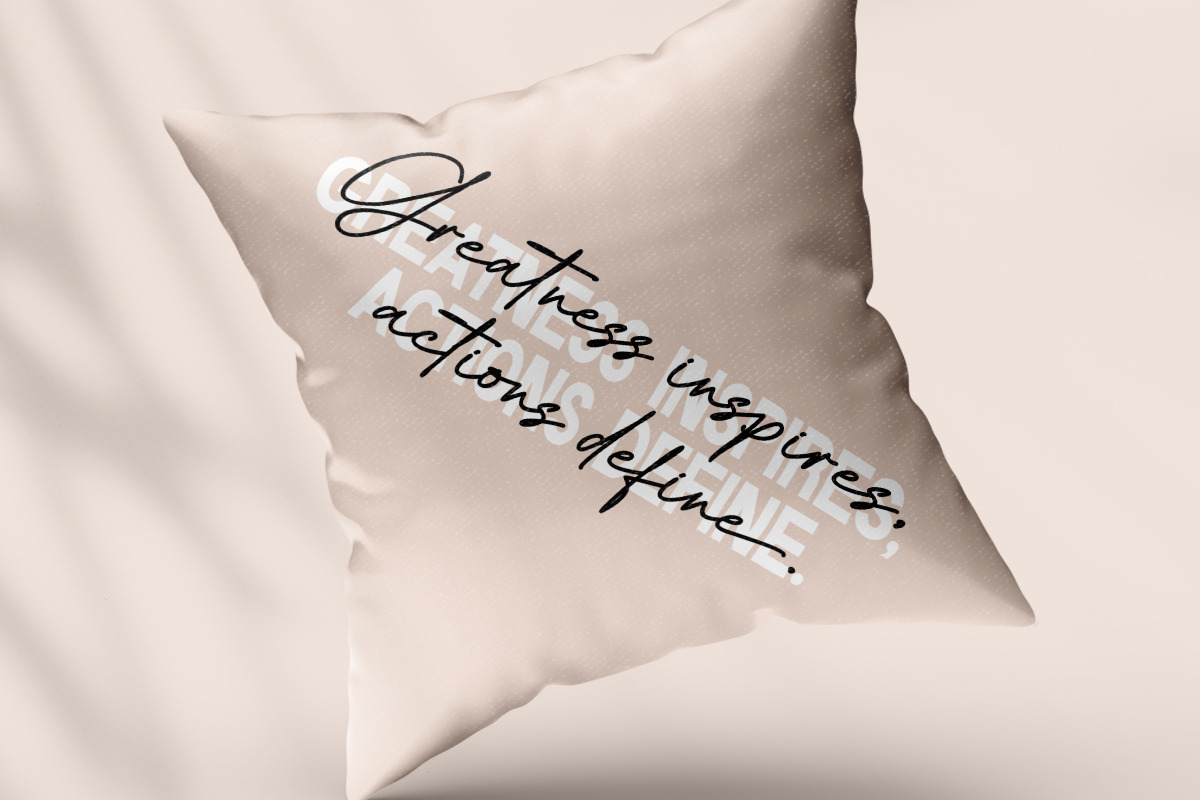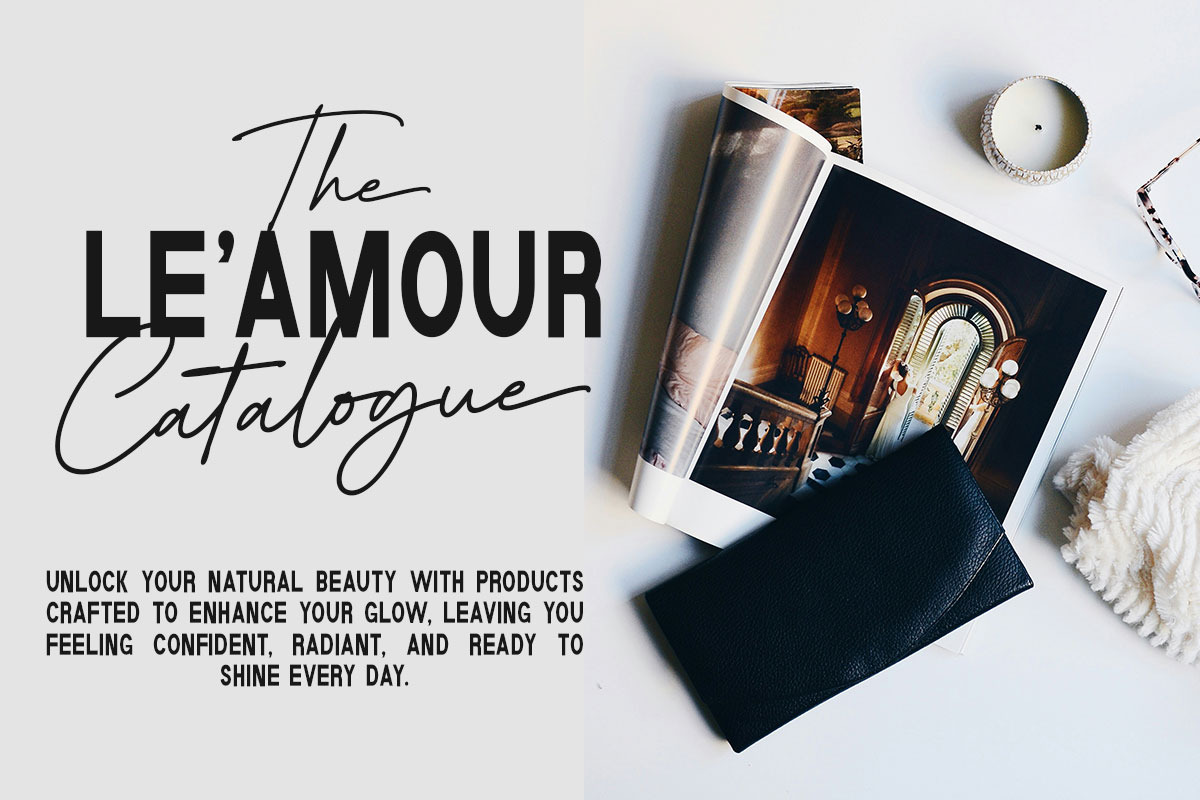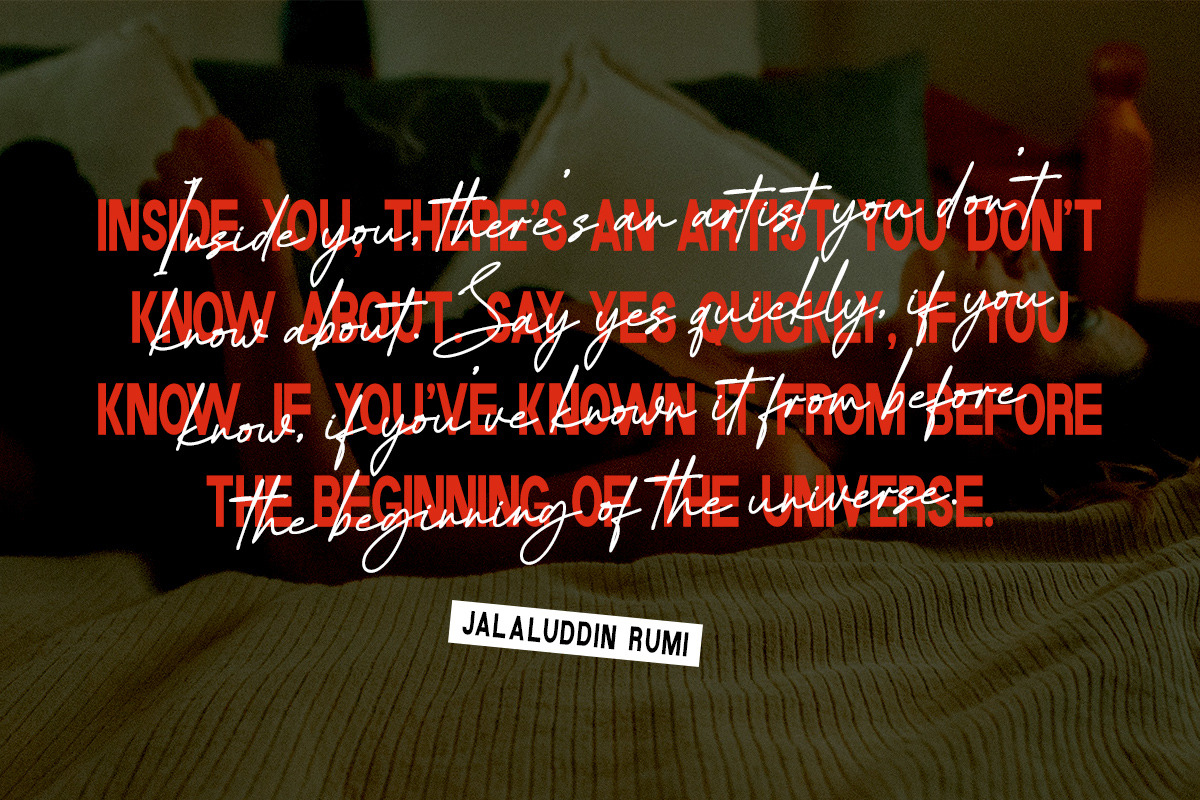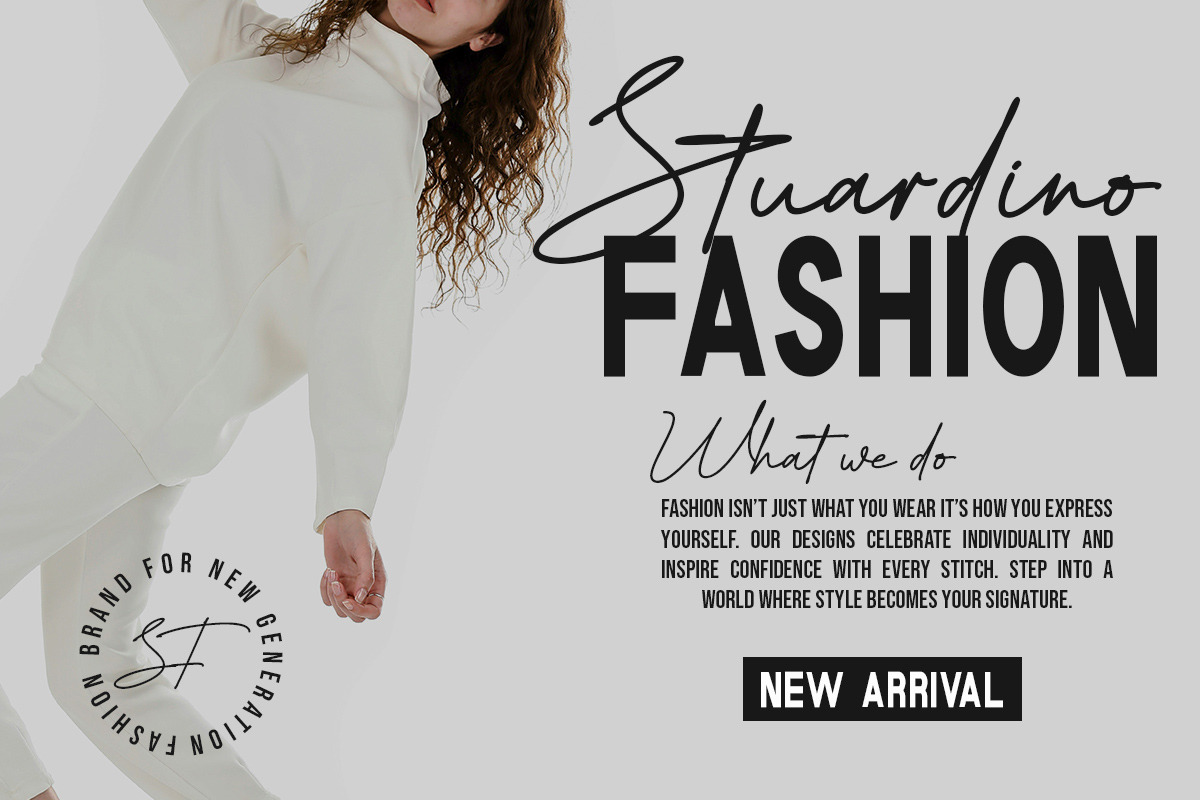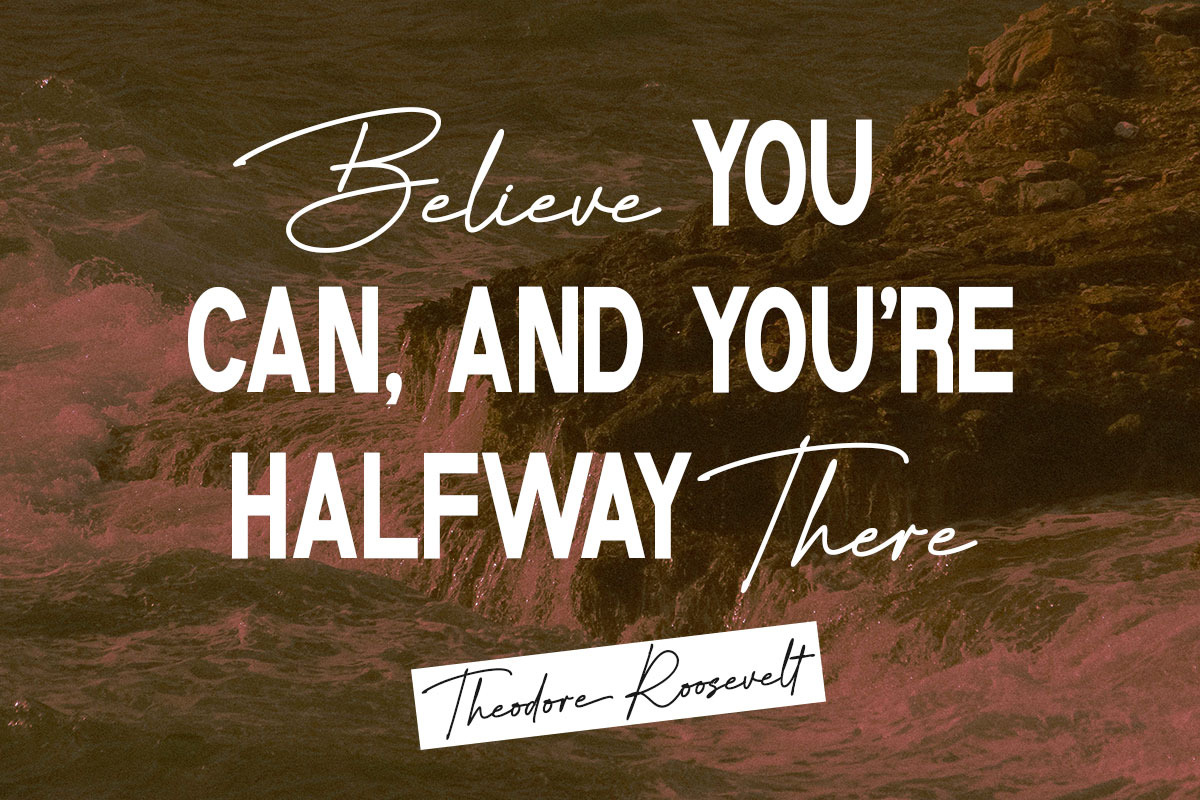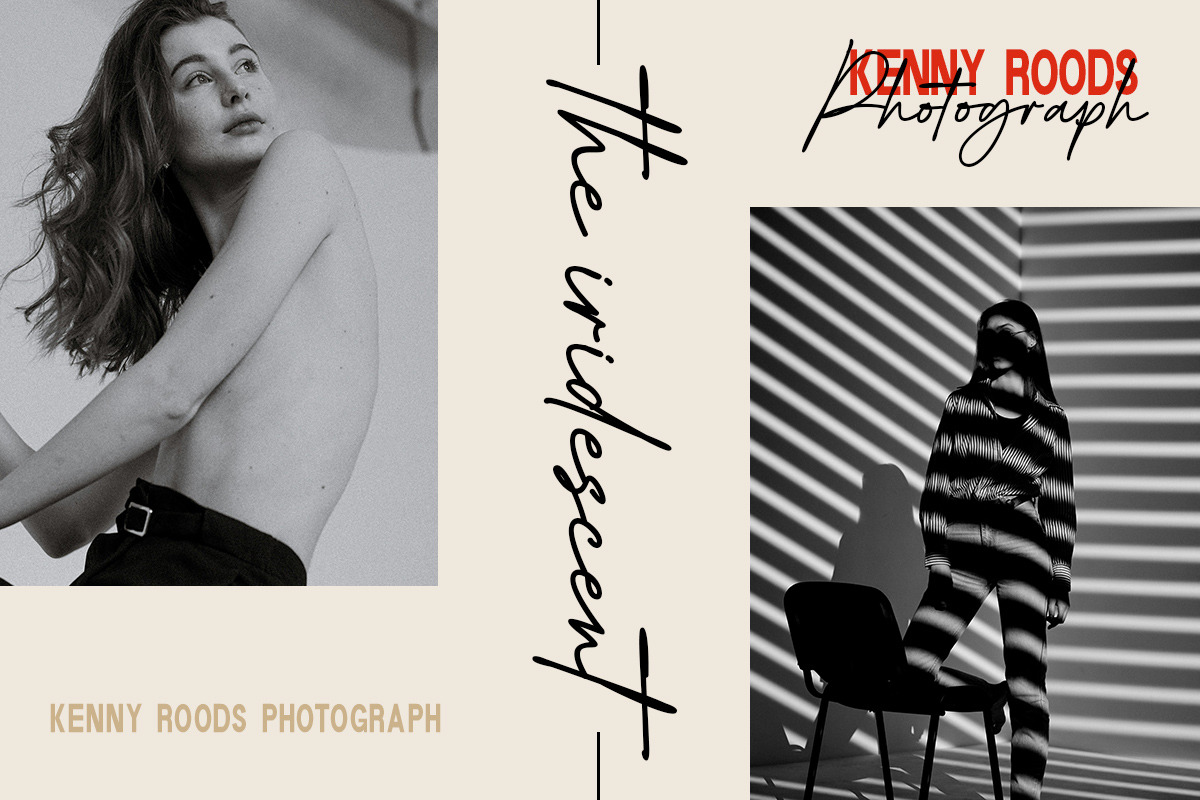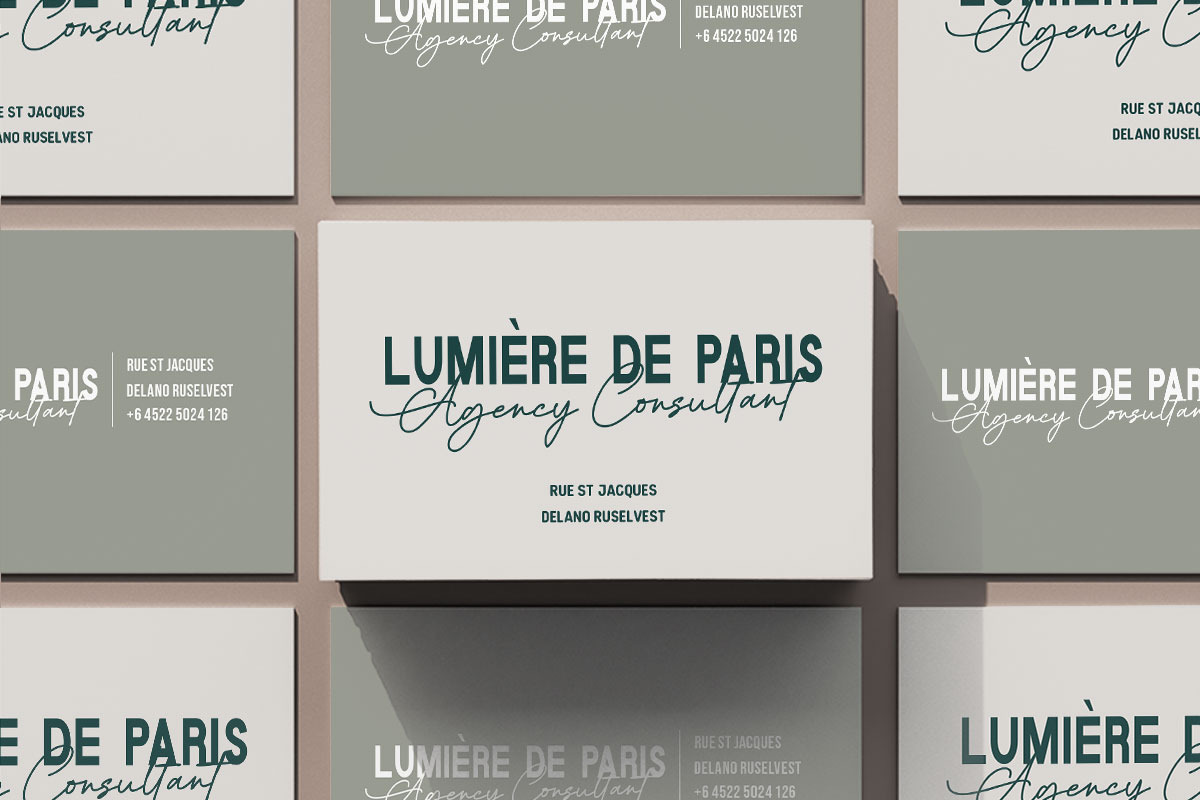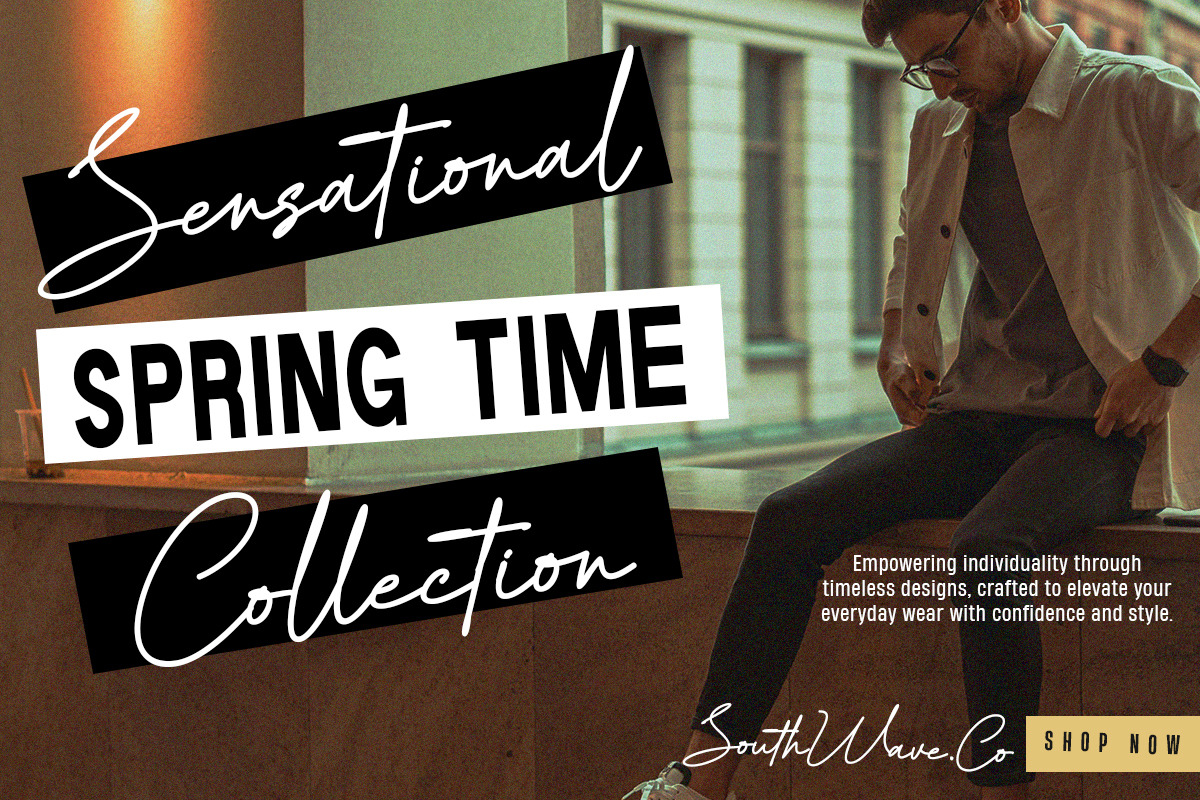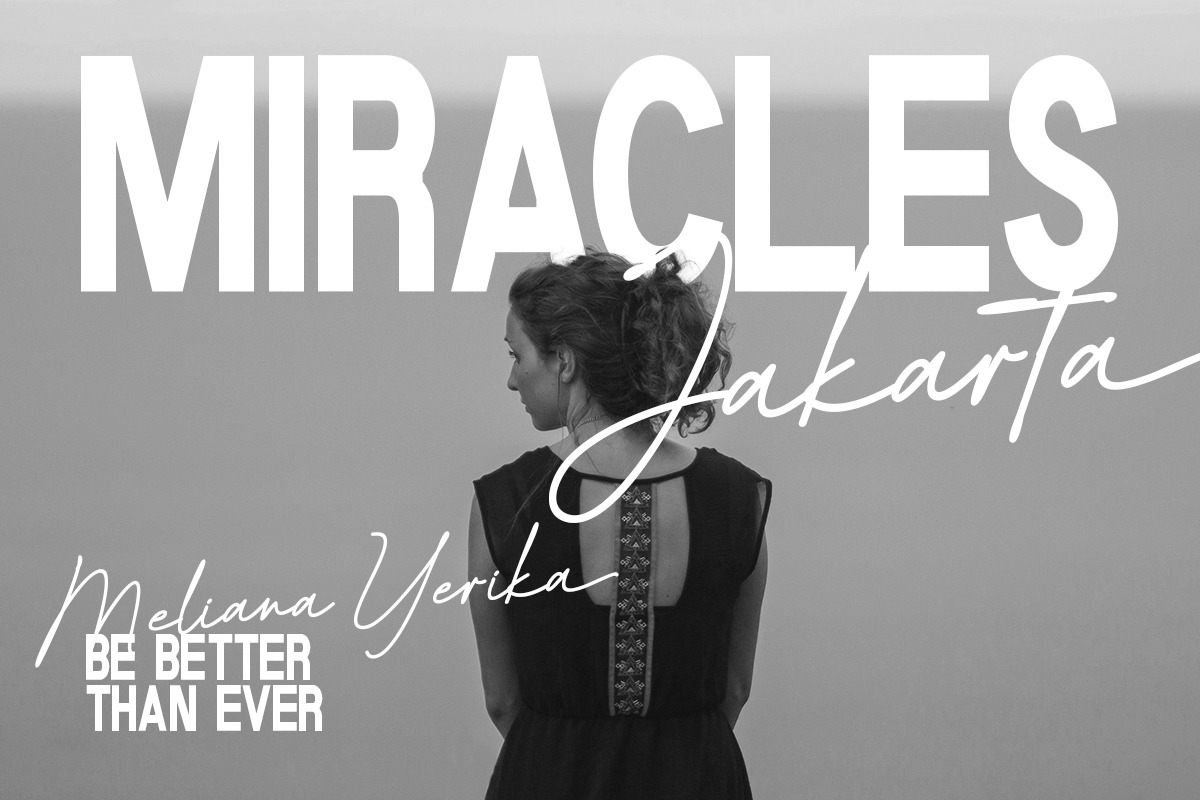
National Autographer
National Autographer is the newest font duo that combines two elegant font styles. National Autographer combines a sans serif font with a natural-looking script font. The look is also minimalist and luxurious. National Autographer brings a luxurious and attractive style to modern logos, websites, social media quotes, wedding stationery, and more.